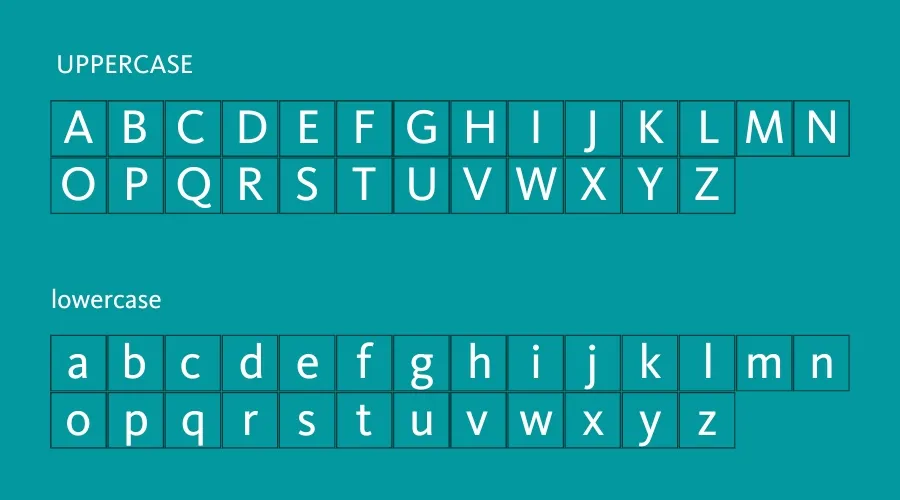
Kievit Book Font
About Kievit Book Font
The essential components are great. The font style is idealized for all your fun plans. The font subfamily is Regular. The text style may change depending on the letters chosen.
A few textual styles don't acknowledge unique characters or were created for a one-off activity. The use of this font gives almost every design the heavy look, so it would be an ideal choice for big text projects.
There are a lot of different ways you can use this font, such as creating invitations or business cards, elegant banners, unique covers, game titles, and many other designs.
A high-quality font is full of subtly textured elements and perfect for use in signage, editorial design, and printing.